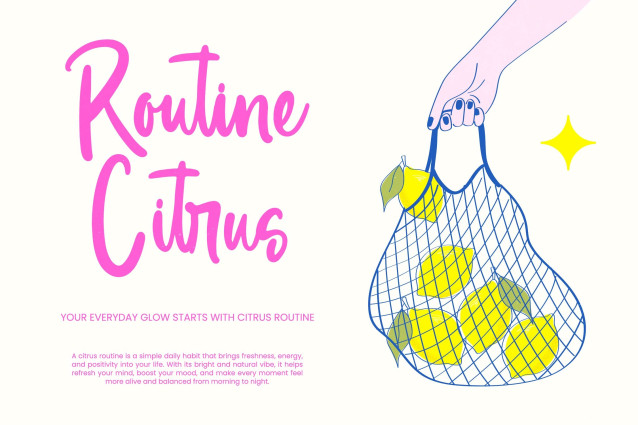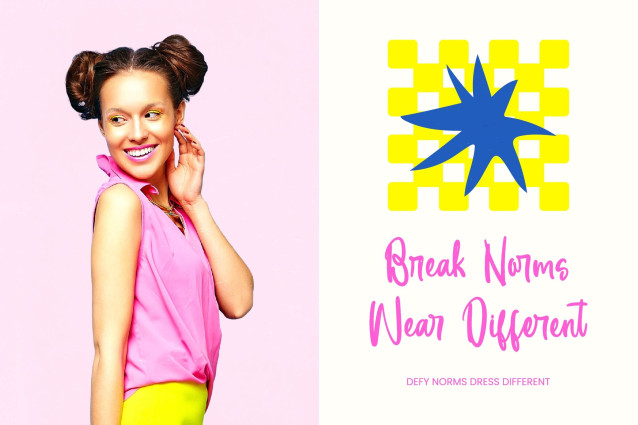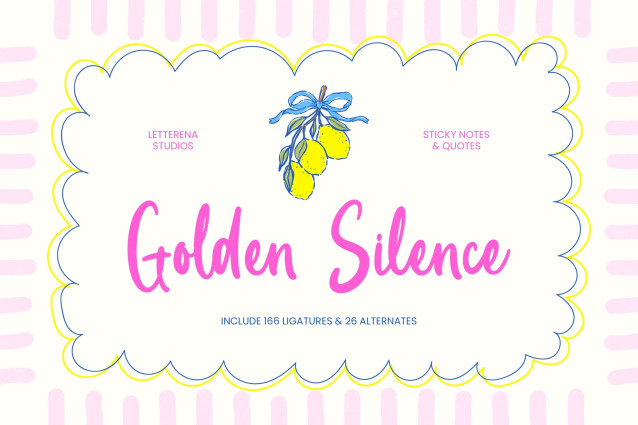
Golden Silence – Sticky Notes & Quotes
Elevate your creative vision with the charming and authentic aesthetic of Golden Silence – Sticky Notes & Quotes. This premium handwritten script font is meticulously designed to provide a natural, organic feel that captures the essence of personalized penmanship. Featuring an impressive collection of 166 ligatures and 26 alternates, Golden Silence – Sticky Notes & Quotes ensures that every word looks unique and flows with effortless grace, making it a standout choice for designers seeking artistic flair and professional polish.
Bridge the gap between local charm and global reach with a typeface built for the modern era. With its extensive multilingual support, Golden Silence – Sticky Notes & Quotes adapts seamlessly across global markets, making it incredibly versatile for international projects. Whether your audience is in Europe, the Americas, or beyond, Golden Silence – Sticky Notes & Quotes maintains its visual consistency and legibility, allowing your brand message to resonate clearly with diverse demographics across the world.